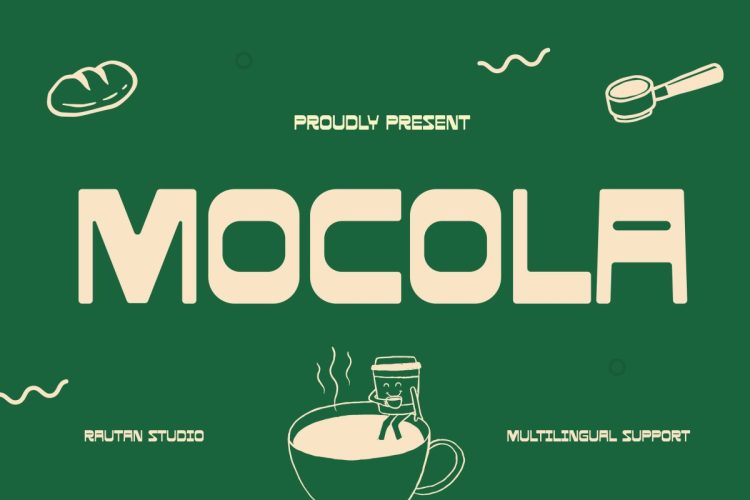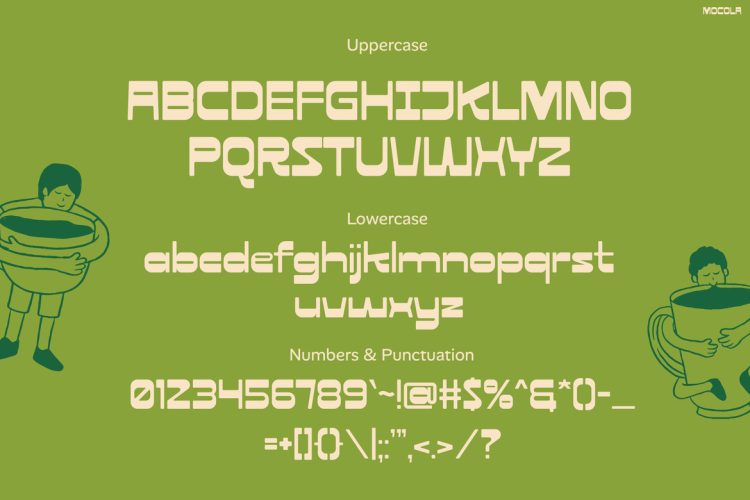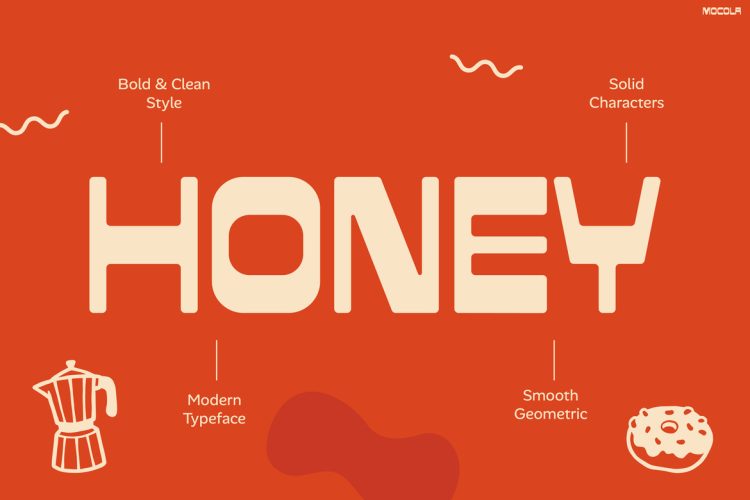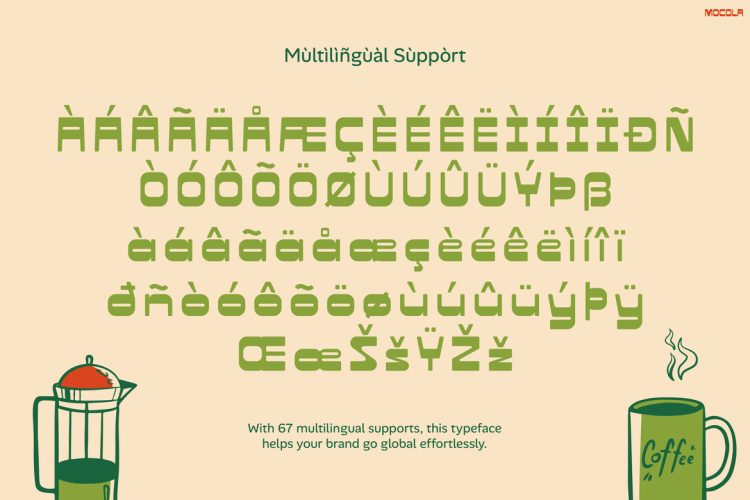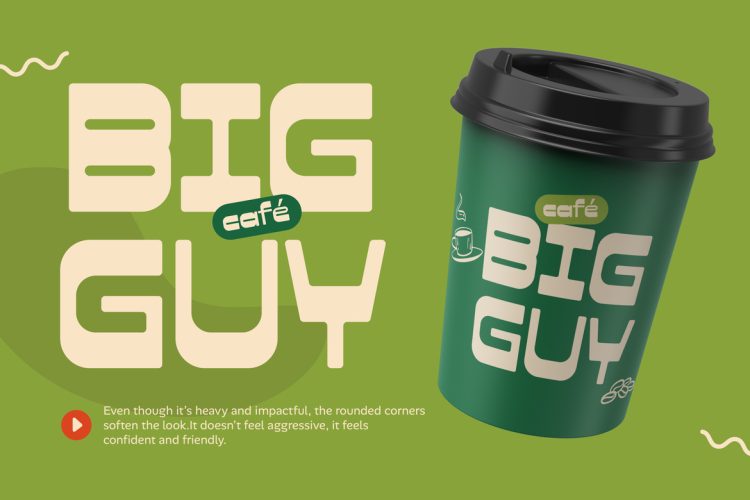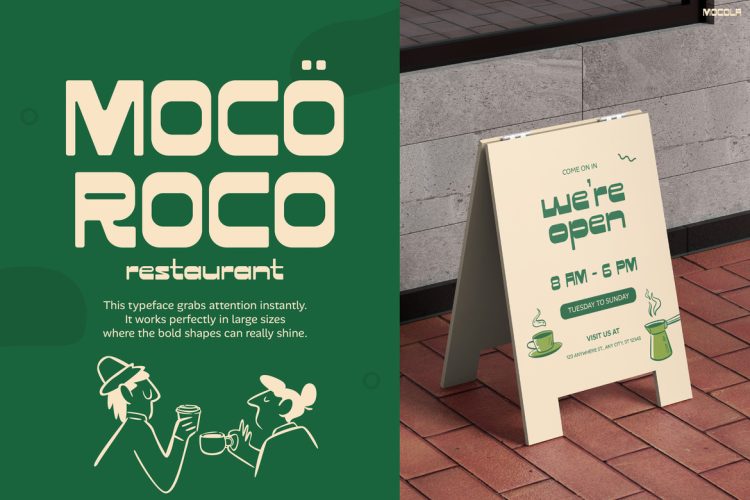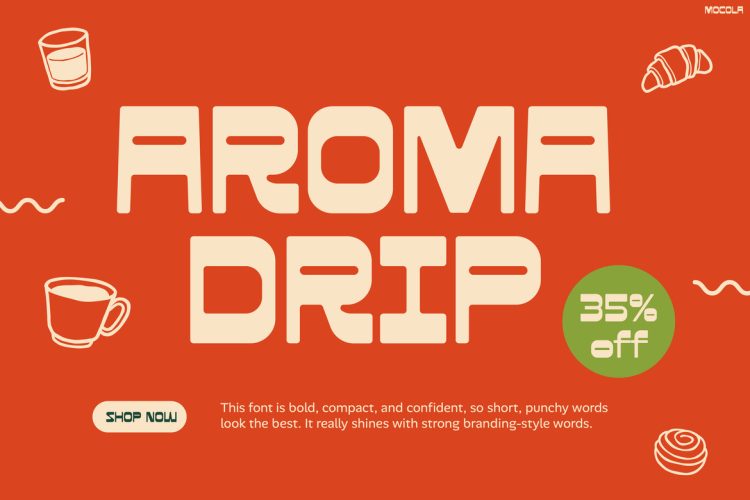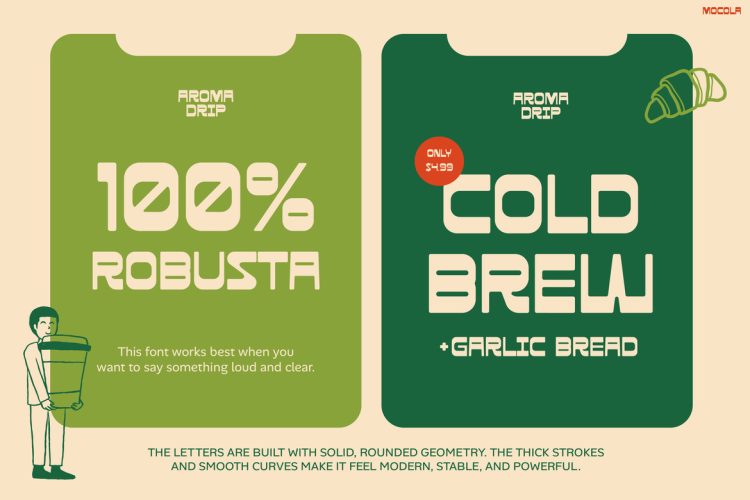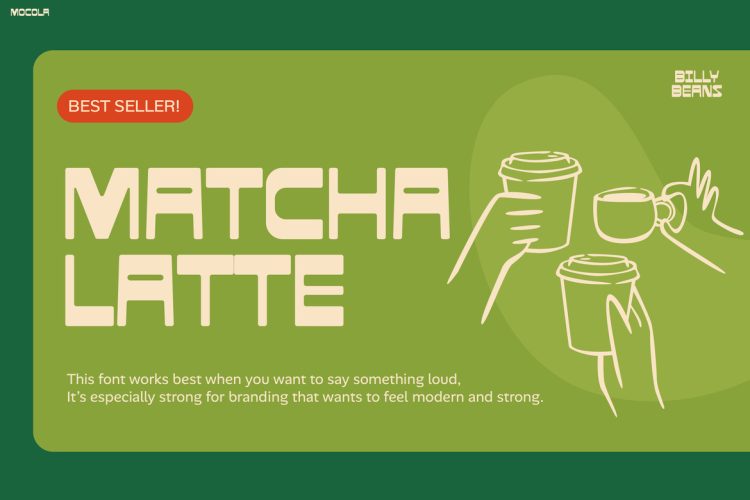
MOCOLA โ Retro Vibes in Every Letter
Retro Font MOCOLA delivers a warm, nostalgic vibe blended with clean modern structure, making it instantly eye-catching and highly functional. Its bold geometric shapes, soft rounded edges, and vintage-inspired letterforms create a perfect balance between retro charm and contemporary clarity. Moreover, this font is designed to stand out across packaging, branding, and digital platforms, ensuring strong readability while maintaining a stylish personality. In addition, the carefully crafted spacing and consistent stroke weight make every word feel solid, friendly, and approachable. As a result, MOCOLA becomes a powerful visual tool for brands that want to communicate authenticity, comfort, and creativity. Supporting 67 languages, it also ensures global usability without sacrificing its distinctive aesthetic.
Retro Font MOCOLA is a bold display typeface inspired by vintage cafรฉ culture and retro packaging design. It blends chunky letterforms with smooth curves, creating a friendly yet confident tone. Furthermore, its strong visual presence makes it perfect for headlines, logos, and product packaging that demand attention. Not only does it evoke warmth and nostalgia, but it also adapts seamlessly to modern layouts. Therefore, whether used on coffee cups, menus, posters, or social media, MOCOLA consistently delivers a memorable and inviting look.
Retro Font MOCOLA is ideal for coffee shops, cafรฉs, food and beverage brands, and lifestyle products. Additionally, it works beautifully for packaging designers, branding agencies, and creative entrepreneurs who want a retro yet fresh identity. It is also perfect for menu designs, product labels, posters, merchandise, and social media content. Meanwhile, businesses aiming to build a cozy, handcrafted, and approachable brand image will find this font especially effective.
Bring warmth, flavor, and personality into your designs with Retro Font MOCOLAโbecause strong branding starts with a font that feels as good as it looks.